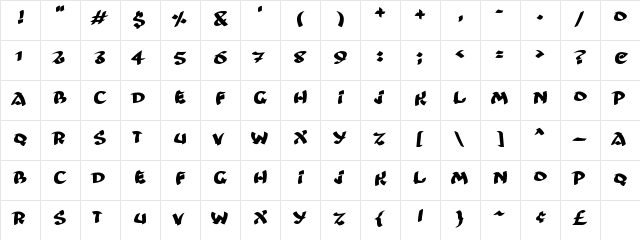
Ninjastrike Regular
Design Context for Ninjastrike Typeface
Ninjastrike is a composed and adaptable typeface that performs quietly and consistently across a wide range of design contexts.
Pro Tip: Use Ninjastrike in both headline and body roles to test its range before committing to a single application.